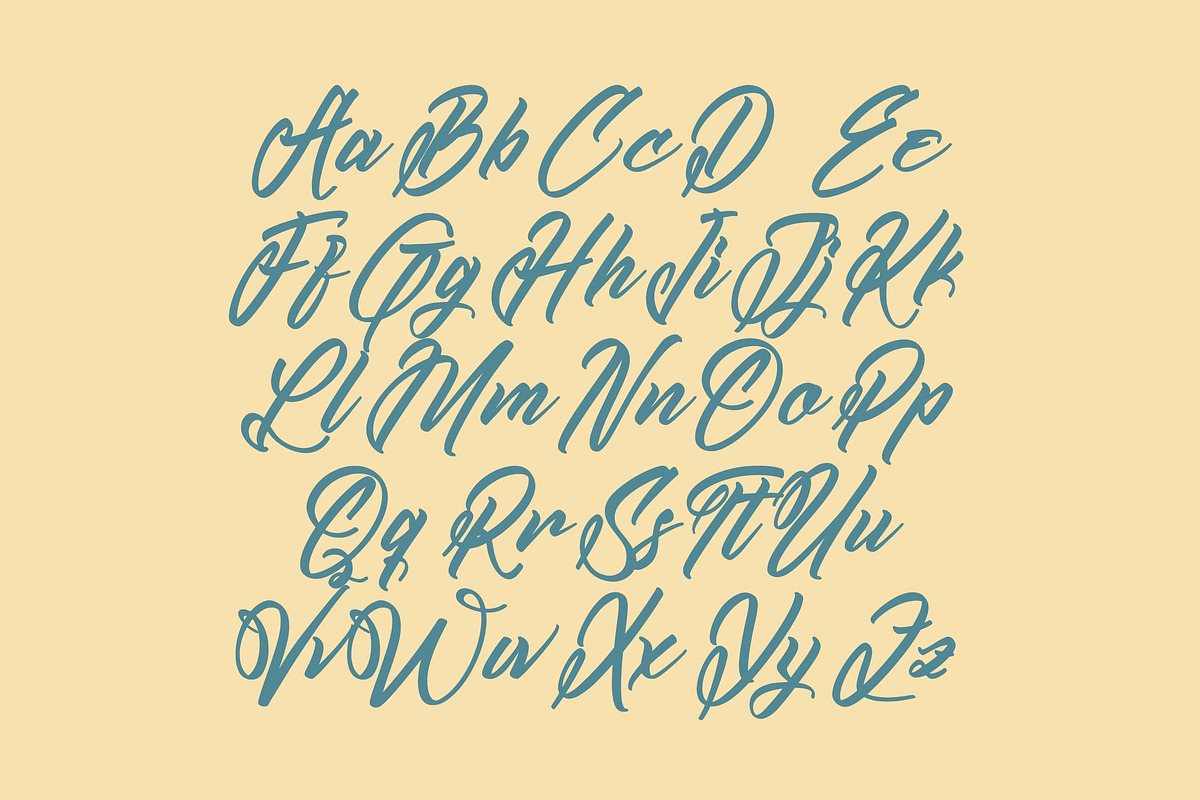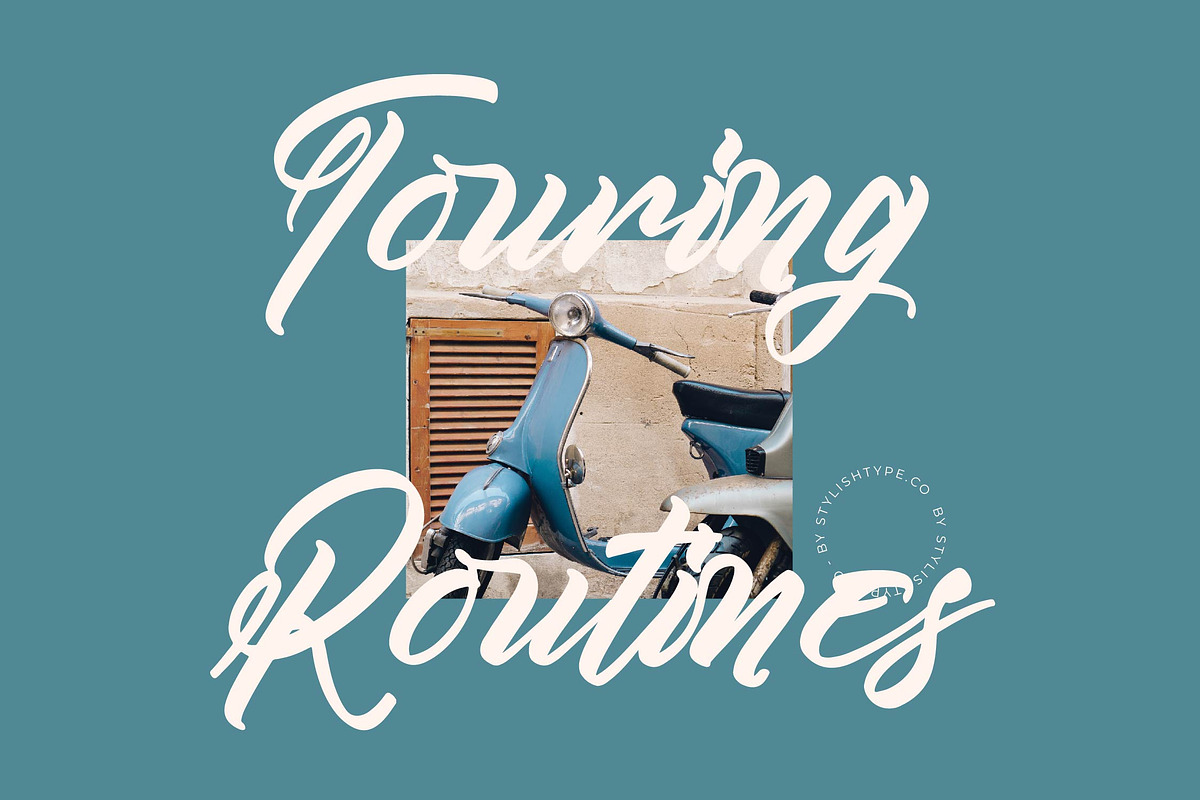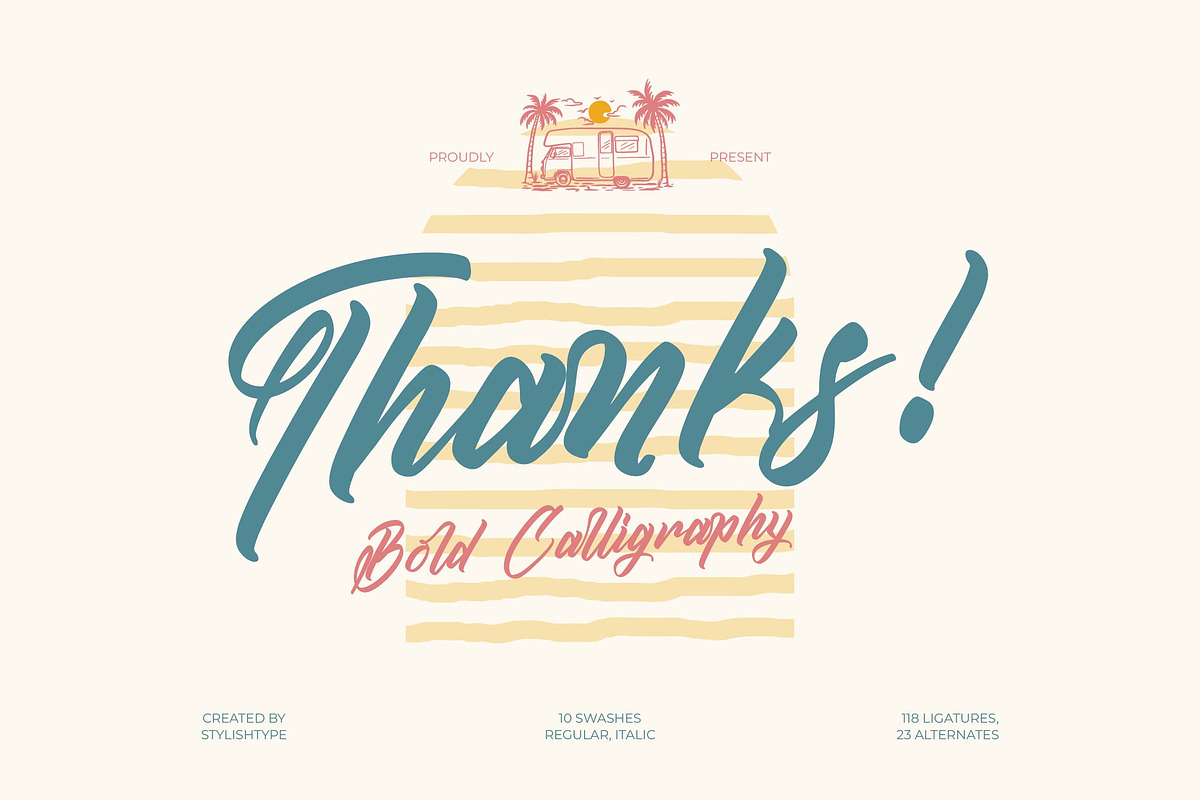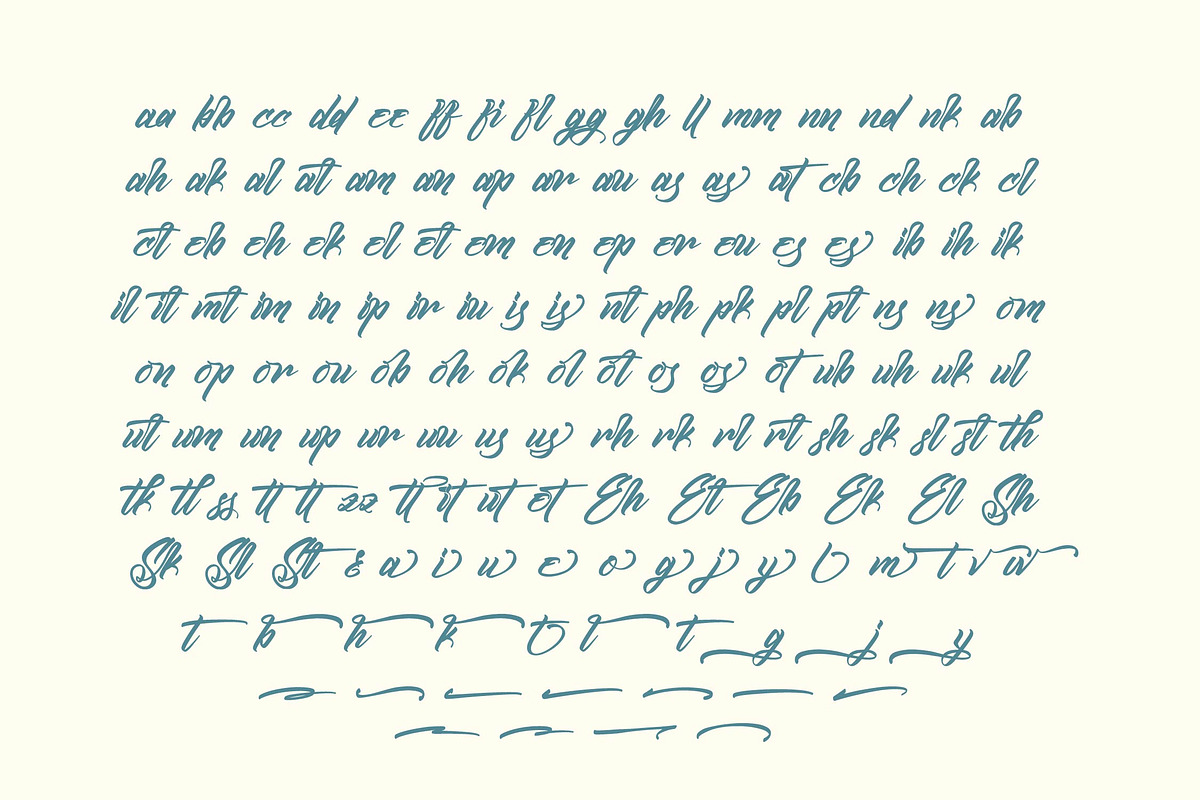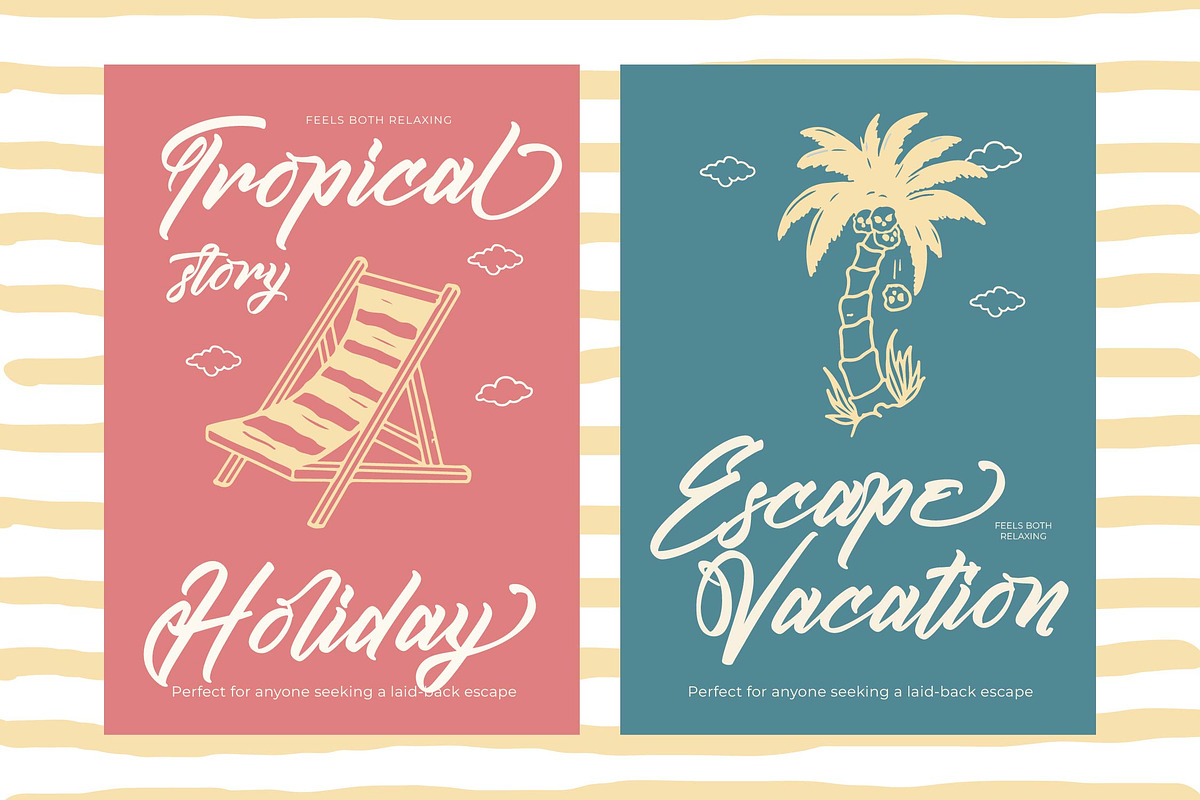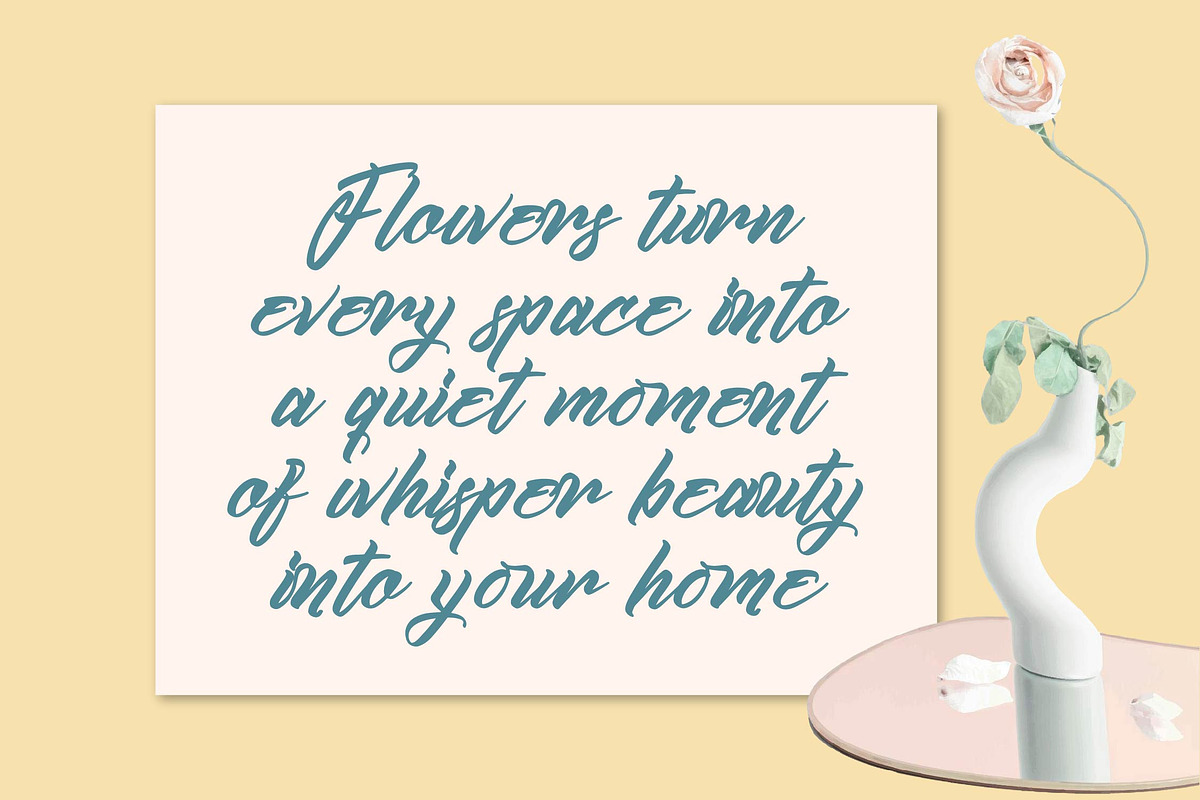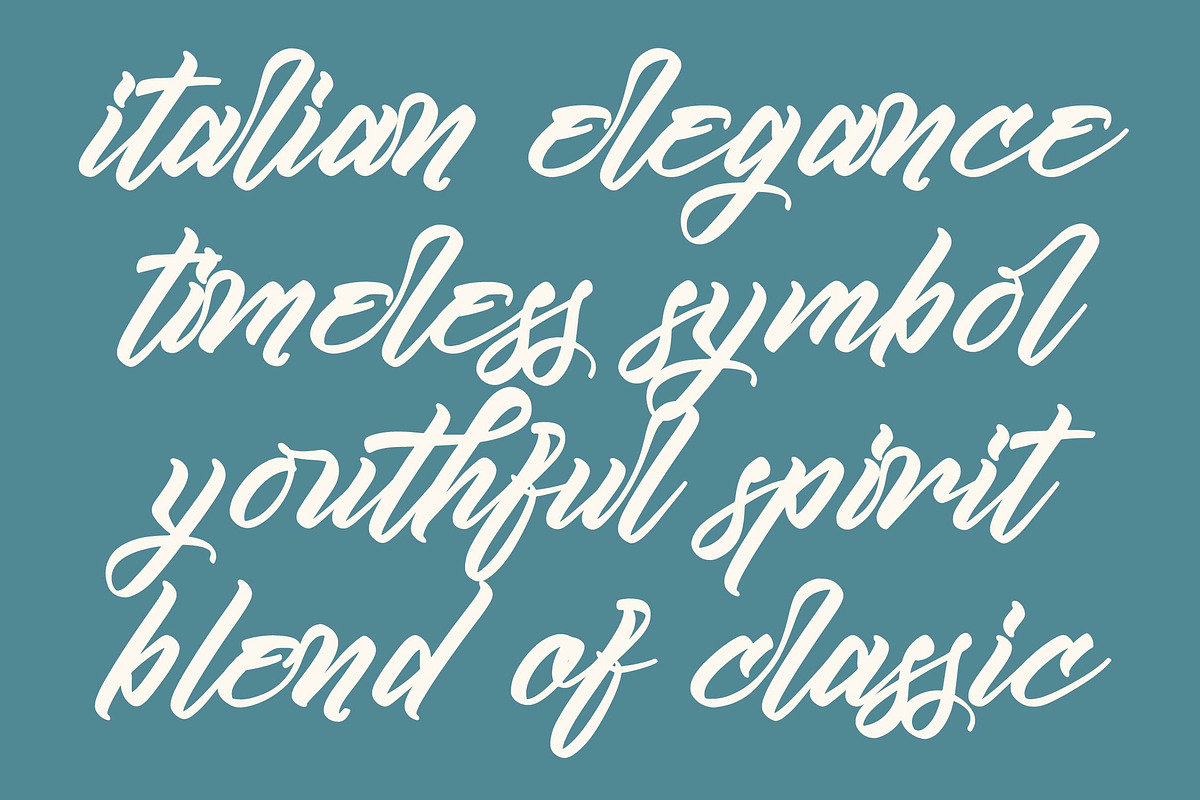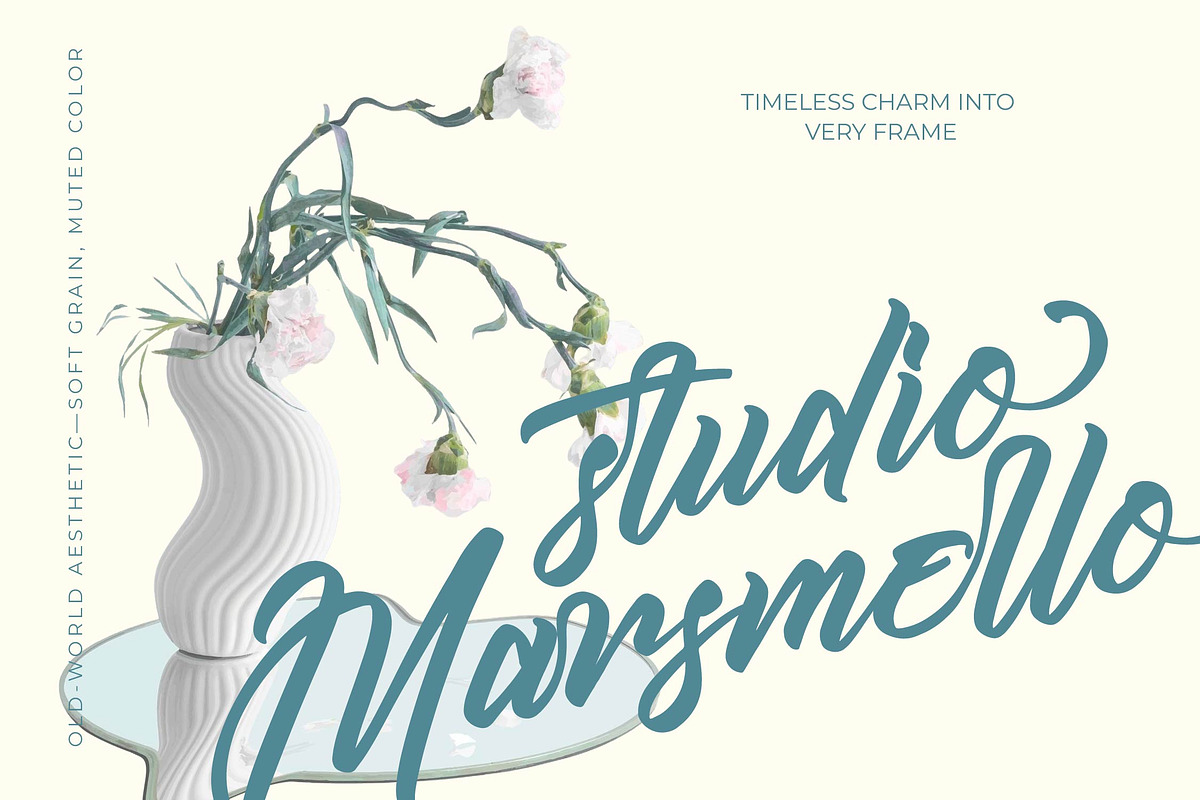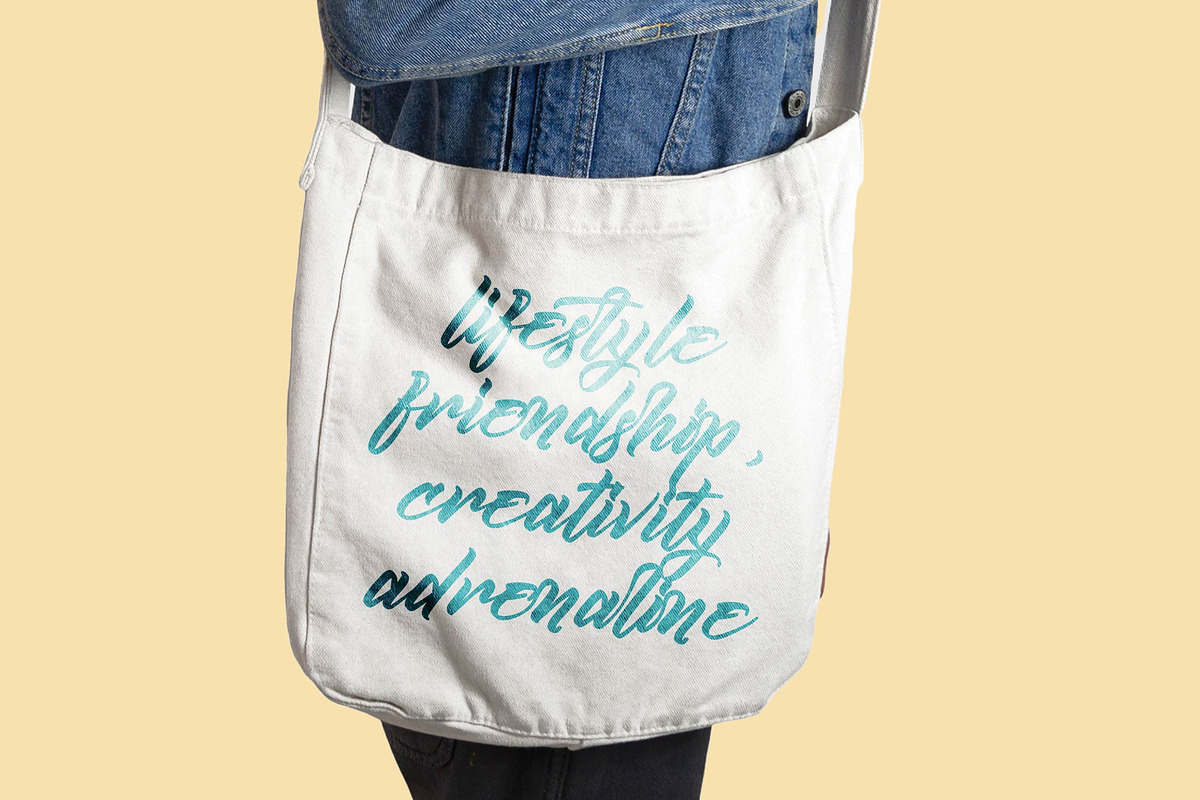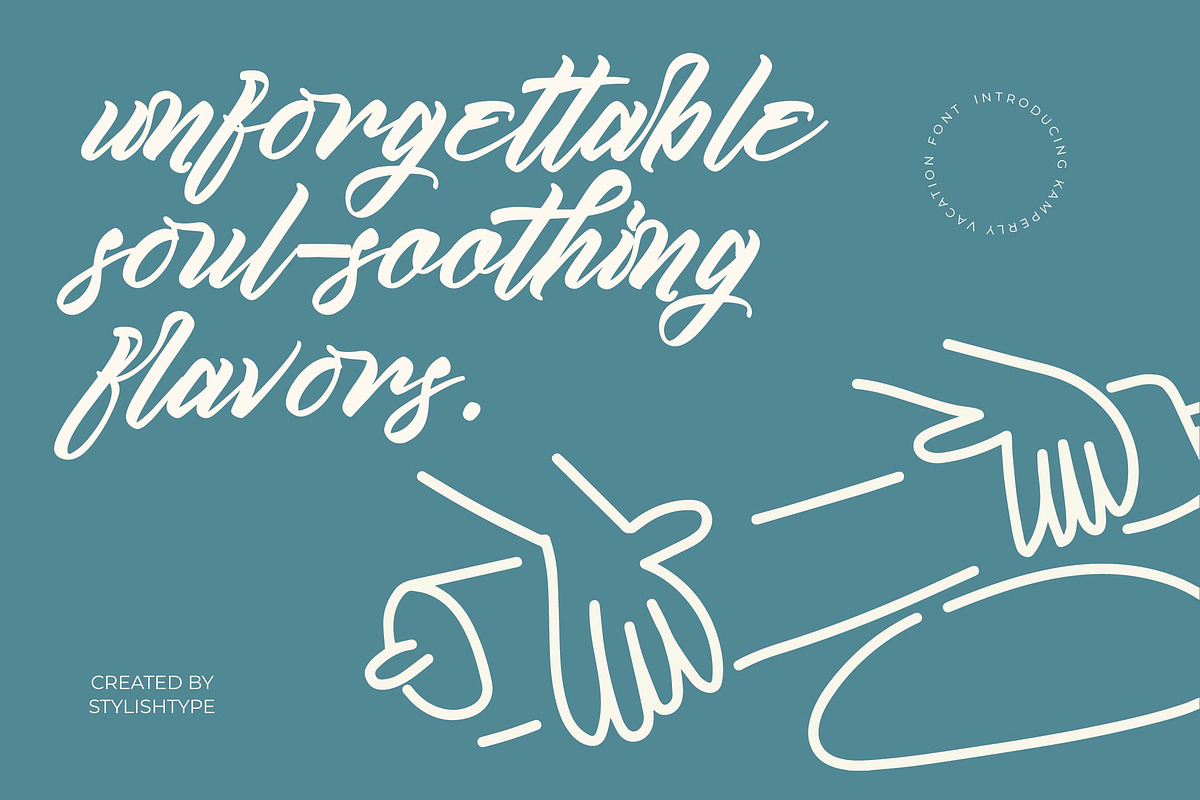
Kamperly Vacation Bold Calligraphy
Kamperly Vacation - Bold Calligraphy Font , Kamperly Vacation is a bold calligraphy script font with energetic strokes, smooth curves, and a relaxed handwritten flow inspired by summer travel, adventure, and beach-life vibes. The font blends casual brush movement with expressive swashes, making it perfect for vacation-themed branding, travel posters, product packaging, social media quotes, apparel design, and sunny lifestyle projects. Its warm, friendly, and carefree personality brings a joyful mood to any creative work. Featuring 118 ligatures, 23 alternates, and 10 swashes, Kamperly Vacation provides immense versatility for creating expressive lettering, dynamic logotypes, stylish title compositions, and fully customized script designs. Its bold presence, modern calligraphic rhythm, and natural handwritten charm make it an excellent choice for designers seeking a lively, summery, and visually engaging script font.